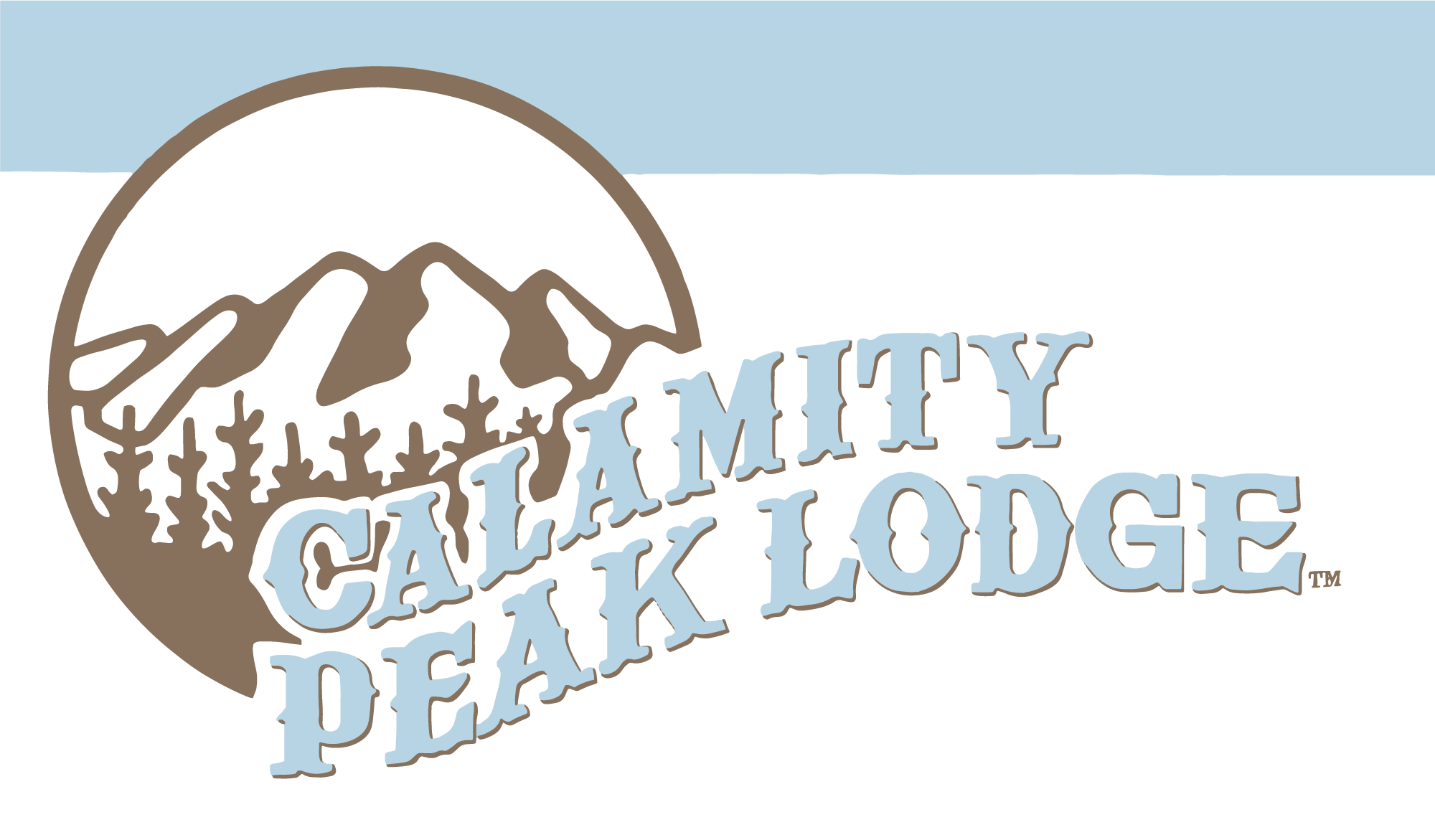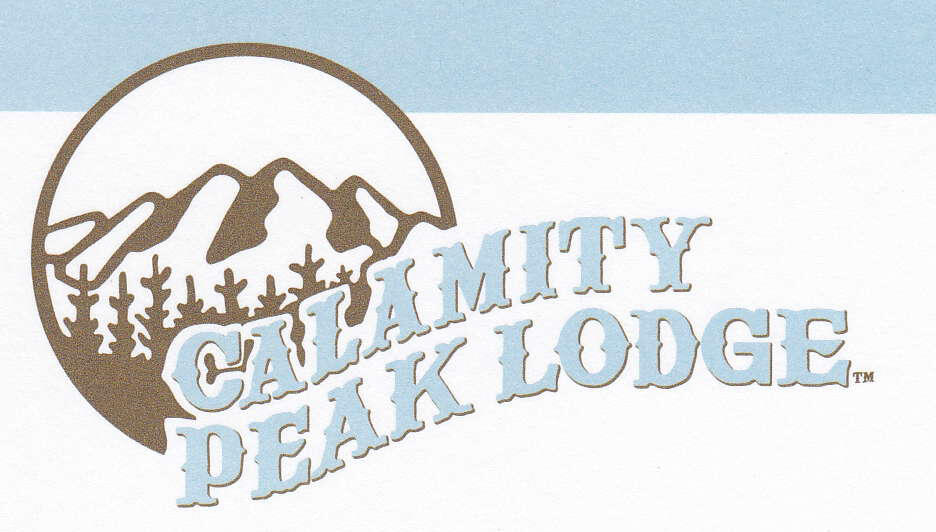
Need identification of western style font in scanned Calamity Peak logo
Owner of local campground wants me to do some new work for them, but all they have is a scan of old letterhead. I'm actually needing the font itself or I would just trace the old logo. I'm not finding anything that has spurs and that interesting crossbar on the E. Thanks in advance if you can tell me if such a font exists, or if this was edited for the logo.
Thanks, I was afraid of that. I wasn't sure it the lettering differences were a result of the arch applied or not. The offset spurs on the P had me thinking maybe it was drawn.